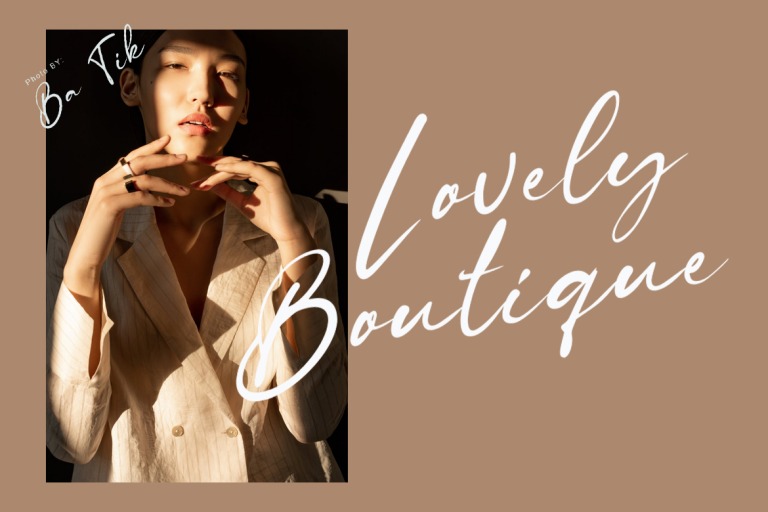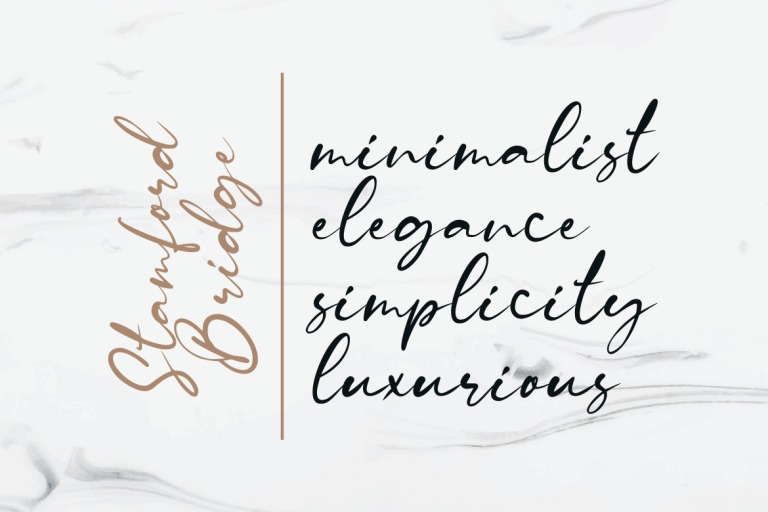
Stamford Bridge Script Font
This font is a beautiful handmade script give the natural looks. Stamford Bridge offer beautiful typographic harmony for a variety of design projects, including watermark, logos, branding, wedding designs, social media posts, advertisements, product designs, magazines and others.